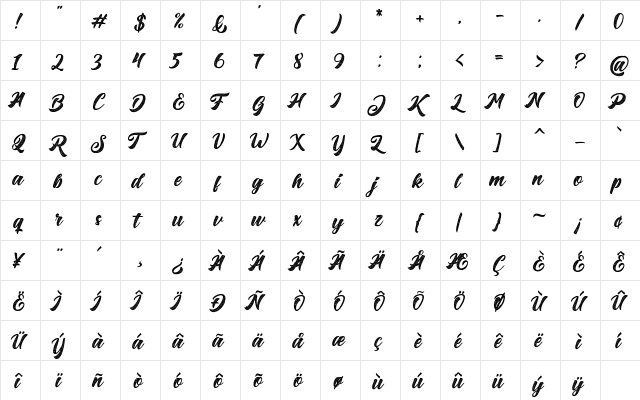
Big Blue Rough Rough
Design Context for Big Blue Rough Typeface
Big Blue Rough trades polish for personality, using distressed and eroded forms to bring grit and attitude to creative work.
Suited to punk-influenced zines, underground music branding, streetwear, and raw, anti-corporate design.
Pro Tip: Pair Big Blue Rough with intentionally raw or lo-fi design elements. Fighting against it with overly polished surroundings will undermine its personality.